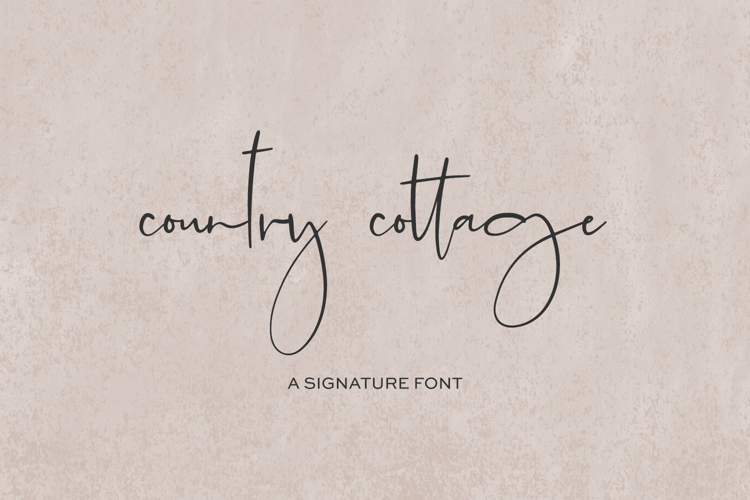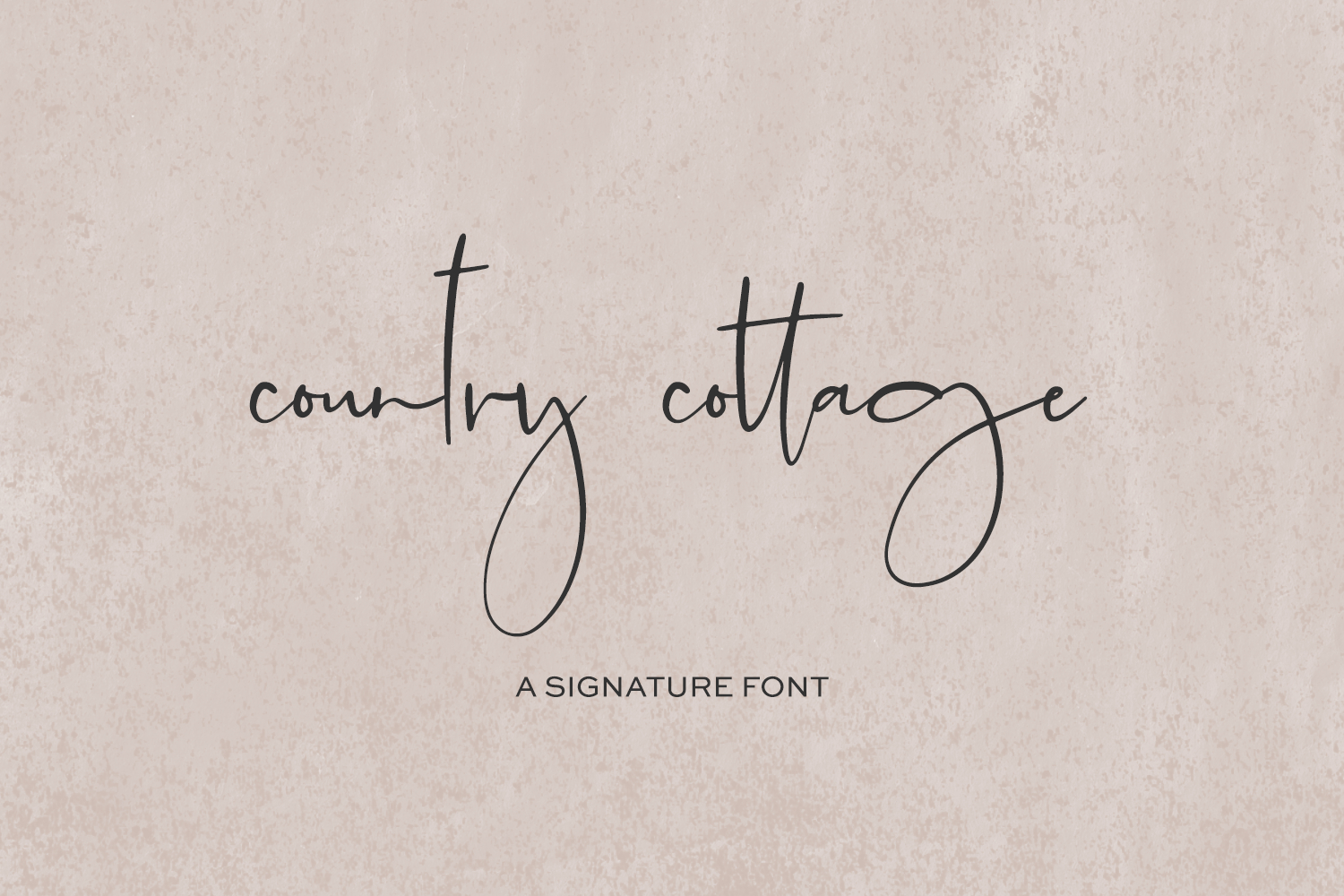
Country Cottage Script Font
Introducing Country Cottage Script, a handwritten signature style font. This stylish font features a messy, casual look and ligatures to enhance the flow of the handwriting look & feel of your project! Country Cottage’s lines are thin & delicate, and with ascenders and descenders having a longer, exaggerated look.
- 28 alternate lowercase characters
- 19 ligatures - Bl, Ch, Cl, Gl, Pl, Sh, Sl, bb, dd, ee, ff, gg, ll, mm, nn, oo, pp, ss, tt